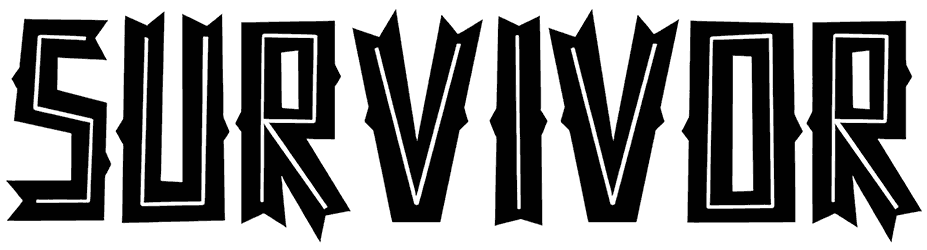
Survivor Font
Survivor has special features that can transform any design from ordinary to great. This African font has bright stripes in the middle of each letter, which makes it work wonders as a neon font for advertisements, poster…
Survivor has special features that can transform any design from ordinary to great. This African font has bright stripes in the middle of each letter, which makes it work wonders as a neon font for advertisements, posters, and branding. Although this font does not support lowercase letters, it has an ethnic yet futuristic vibe that can portray an aesthetic cultural sense.